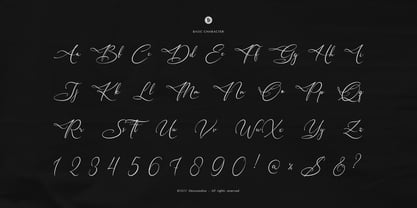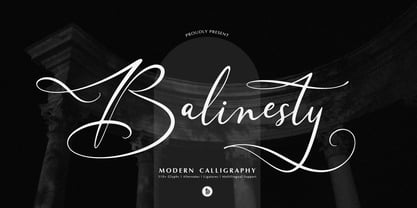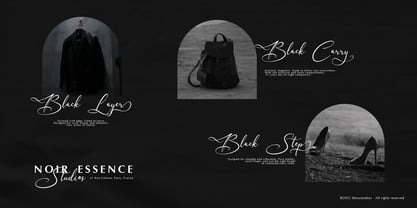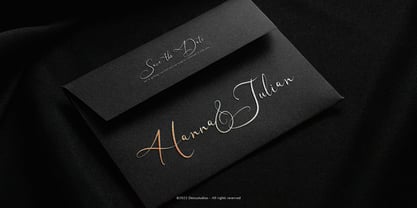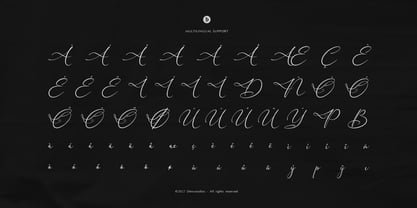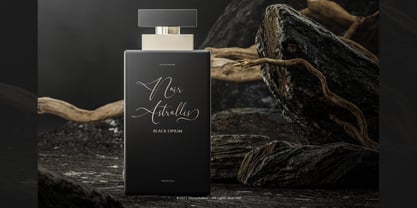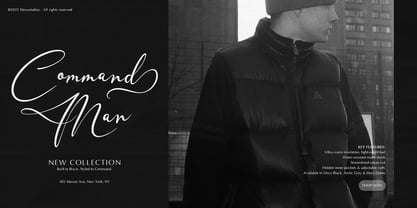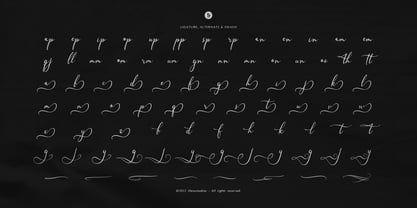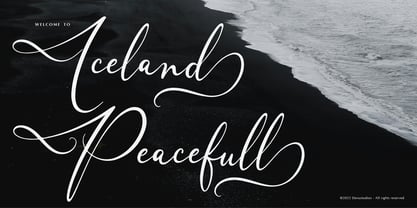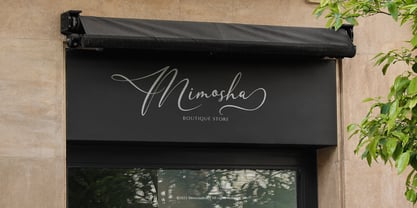
Balinesty
by Denustudio
The Balinesty Font Family was designed by Dede Nugraha and published by Denustudio. Balinesty contains 2 styles and family package options. More about this family
Balinesty | Modern Calligraphy, from Denustudios, suitable for any projects such as: logos, branding projects, homeware designs, product packaging, mugs, quotes, posters, shopping bags, t-shirts, book covers, name card, invitation cards, greeting cards, label, photography, watermark, special events, and all your other lovely projects that need Modern Calligraphy a taste.
• Alternate and Ligature
Designers: Dede Nugraha
Foundry: Denustudio